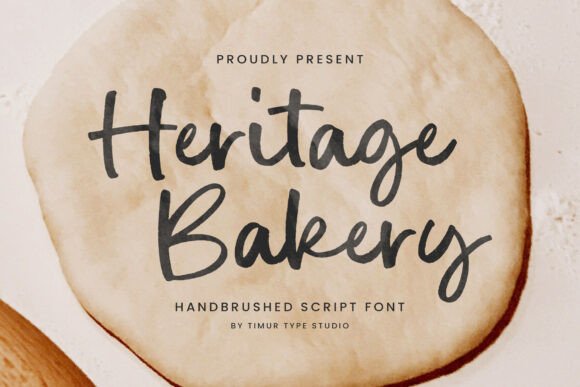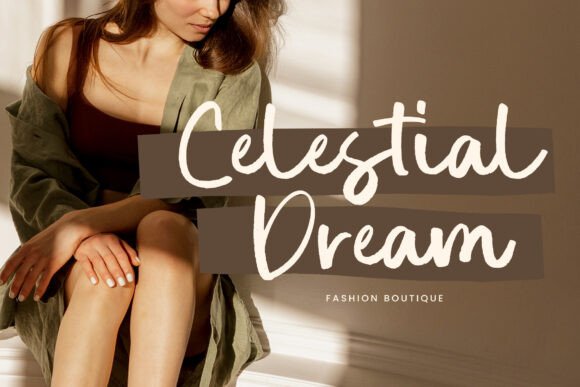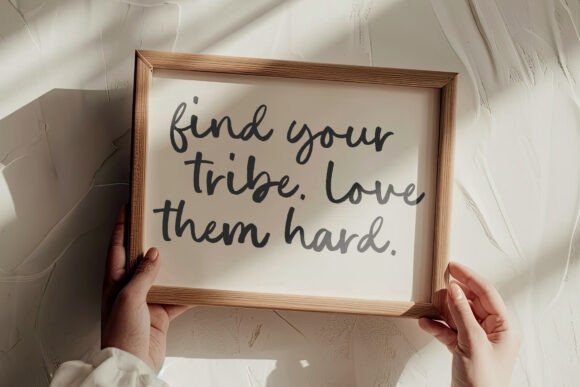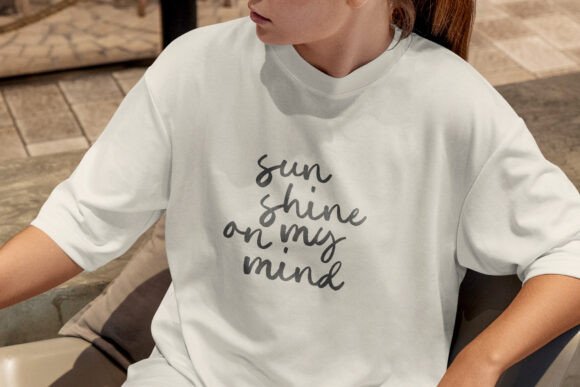
Heritage Bakery Font
About the Heritage Bakery Font
We are excited to introduce Heritage Bakery Font, a must-have typeface for any serious designer. Heritage Bakery is a Handbrushed Script Font
This font is a charming handbrushed script font that exudes a warm, nostalgic feel. With its fluid, organic strokes and playful yet elegant design, it’s perfect for projects that aim to capture a handmade, artisanal vibe. Ideal for branding, packaging, logos, and invitations, Heritage Bakery brings a touch to any creative endeavor.
Heritage Bakery’s organic forms work best in headlines, short text blocks on packaging, and branding applications where a handcrafted aesthetic is desired. Avoid using it for lengthy body text or UI elements; its playful nature can hinder readability in extended passages.
The font’s core personality is friendly and approachable, yet elegant. It suits brands focused on artisanal goods, cafes, bakeries, or small businesses emphasizing quality and tradition.
Pairing Heritage Bakery with a clean sans-serif like Open Sans for body copy or a geometric sans-serif for a modern contrast would create a balanced design. Consider a simple serif like Lora for a more traditional feel or a delicate script for a layered effect, depending on the desired level of formality.